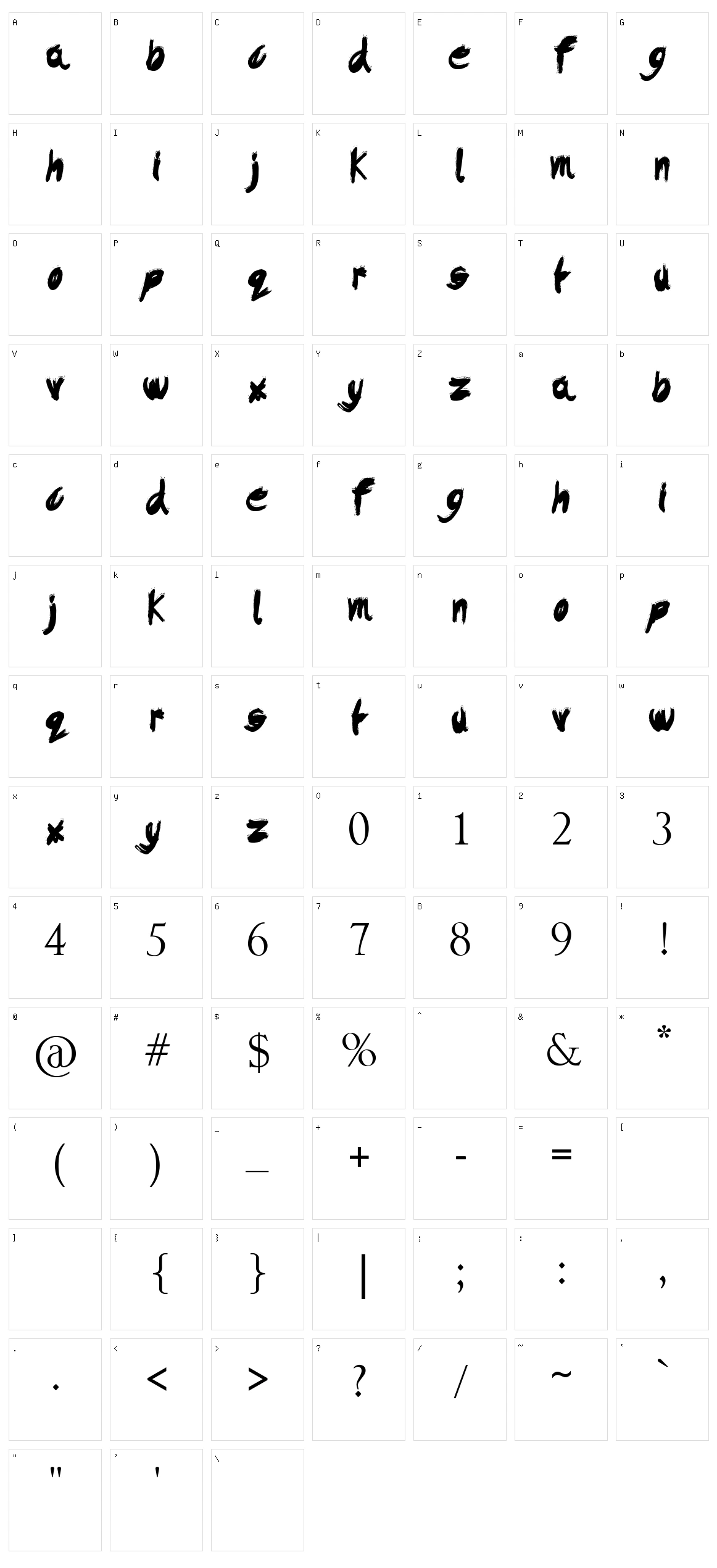
The free font Dysfunctional Family is carefully designed by JSH creates, showcasing a thoughtful balance of creativity and usability and falls under the Trash font style. When you download the ZIP file, it contains only 62.51 KB of font files, making it lightweight and quick to download. Please review the license details below to understand permitted usage and distribution rights. If license information is not available, we recommend using this font for personal projects only or contacting the author directly for commercial usage permissions.